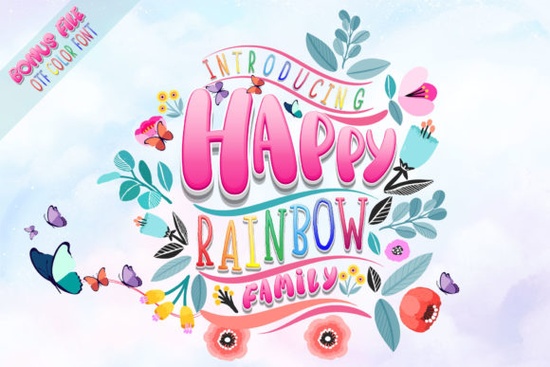
If you're looking for a cheerful, kid-friendly font that works across school projects, classroom posters, or children’s activity sheets, the Happy Rainbow Family Font is a thoughtful, well-balanced choice. It’s not just one font it’s a coordinated trio: a playful display font, a clean serif, and a friendly script all designed to work together without clashing. That makes it especially handy if you’re building a consistent visual theme for a lesson plan, printable workbook, or small-batch kids’ product line.
What makes this font family easy to use?
Unlike many “cute” fonts that sacrifice readability for charm, Happy Rainbow Family Font keeps letters clear and legible even at smaller sizes. The display font has gentle rounded edges and subtle bounce, while the serif adds quiet structure (great for body text in handouts), and the script feels warm and handwritten not overly stylized or hard to read. You won’t need to hunt for alternate characters or manually adjust spacing between words. Everything flows naturally out of the box.
This trio also avoids overused tropes no glitter textures, no forced “cartoon” distortion. Instead, it leans into sincerity and lightness, which helps it stand out in crowded spaces like Teachers Pay Teachers or Etsy printables. If you’ve ever spent time tweaking kerning on a script font just to get it to look right beside a headline, you’ll appreciate how these three were built to complement each other from the start.
Who’s using it and where does it fit best?
School teachers and homeschoolers are using it for themed reading logs, behavior charts, and bulletin board headers. Print-on-demand sellers apply it to baby shower invitations, toddler growth charts, and nursery wall art especially when they want something joyful but not saccharine. Crafters pair it with watercolor backgrounds or simple line drawings, and small businesses choose it for eco-friendly kids’ product labels (think organic snack packs or wooden toy packaging).
It fits neatly into categories like educational resources, children’s printables, classroom decor, and handmade kids’ goods. Since it’s not tied to a single holiday or trend, it stays useful year after year unlike fonts built around specific themes (e.g., Halloween bats or Christmas bells) that go stale quickly.
How does it compare to other friendly script fonts?
While Madelyn Heart Font offers delicate elegance for sentimental keepsakes, and Heart Warming Font leans into soft romance, Happy Rainbow Family Font is built for clarity first. Its script isn’t meant for wedding invites it’s made for labeling a preschool craft station or titling a summer camp schedule.
Similarly, Kindred Font has a more mature, editorial feel ideal for lifestyle blogs or boutique branding while Beautiful Fonts covers a wide range of refined styles, often with ornate swashes. And though Barbie Font brings bold personality, it’s very niche; Happy Rainbow Family Font gives you flexibility without leaning too hard into any one aesthetic.
- Test all three weights together try pairing the display font for headings, the serif for instructions, and the script for short callouts (“Try this!” or “Your turn!”).
- Use the script sparingly: best for labels, quotes, or decorative accents not full paragraphs.
- Pair it simply: Soft pastels, clean white space, and hand-drawn icons keep the focus on the message not the decoration.
One last note: If you’re sourcing fonts for a series of related products (say, a set of alphabet flashcards, matching worksheets, and a teacher guide), having a unified font family like this saves time and strengthens brand recognition even for young learners who notice consistency before they read fluently.